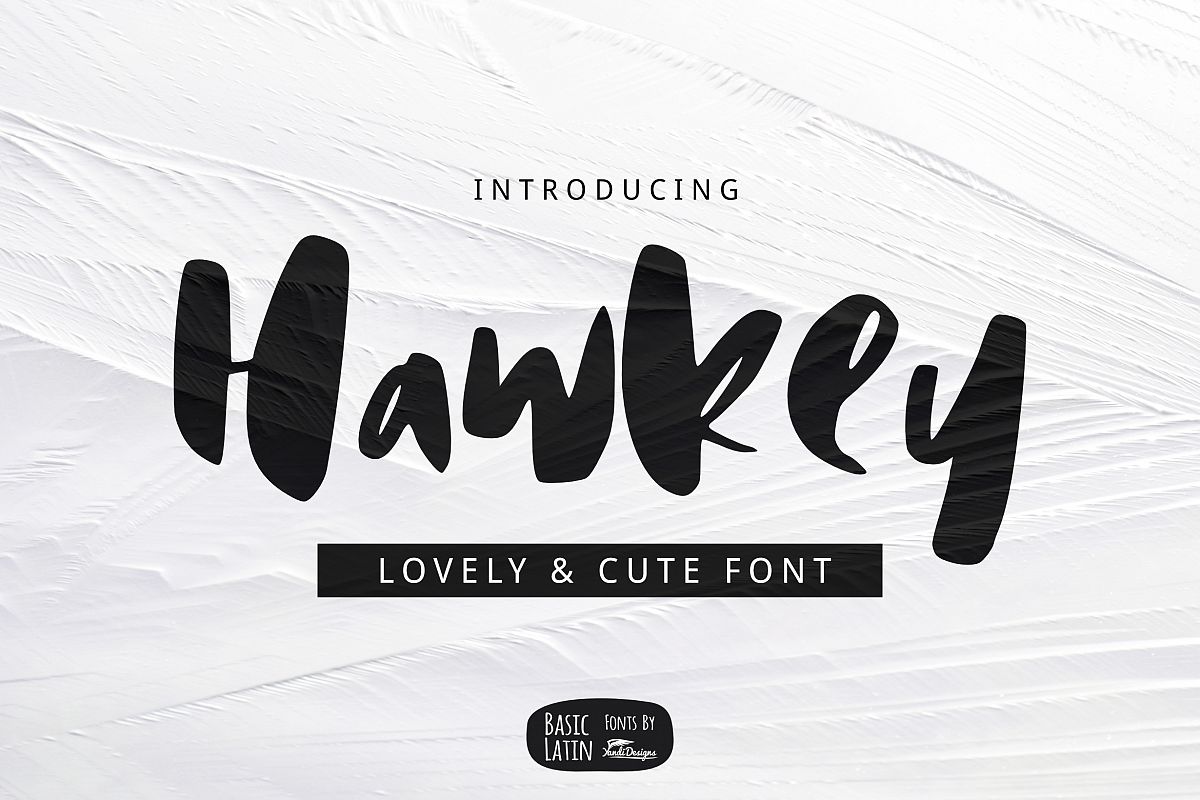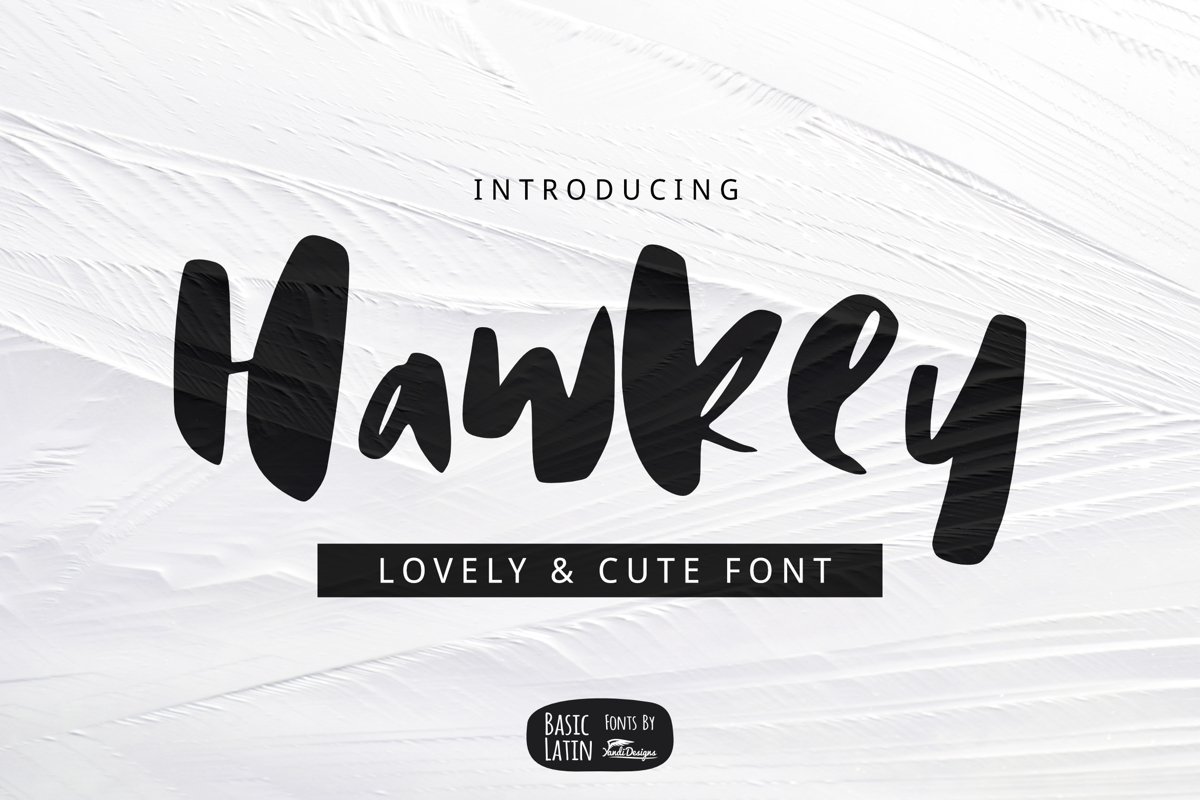
Hawkey Brush Font
Hawkey font is simple artistic multipurpose handmade brush font , suitable for many project children book, quotes, logo , heading , title etc.